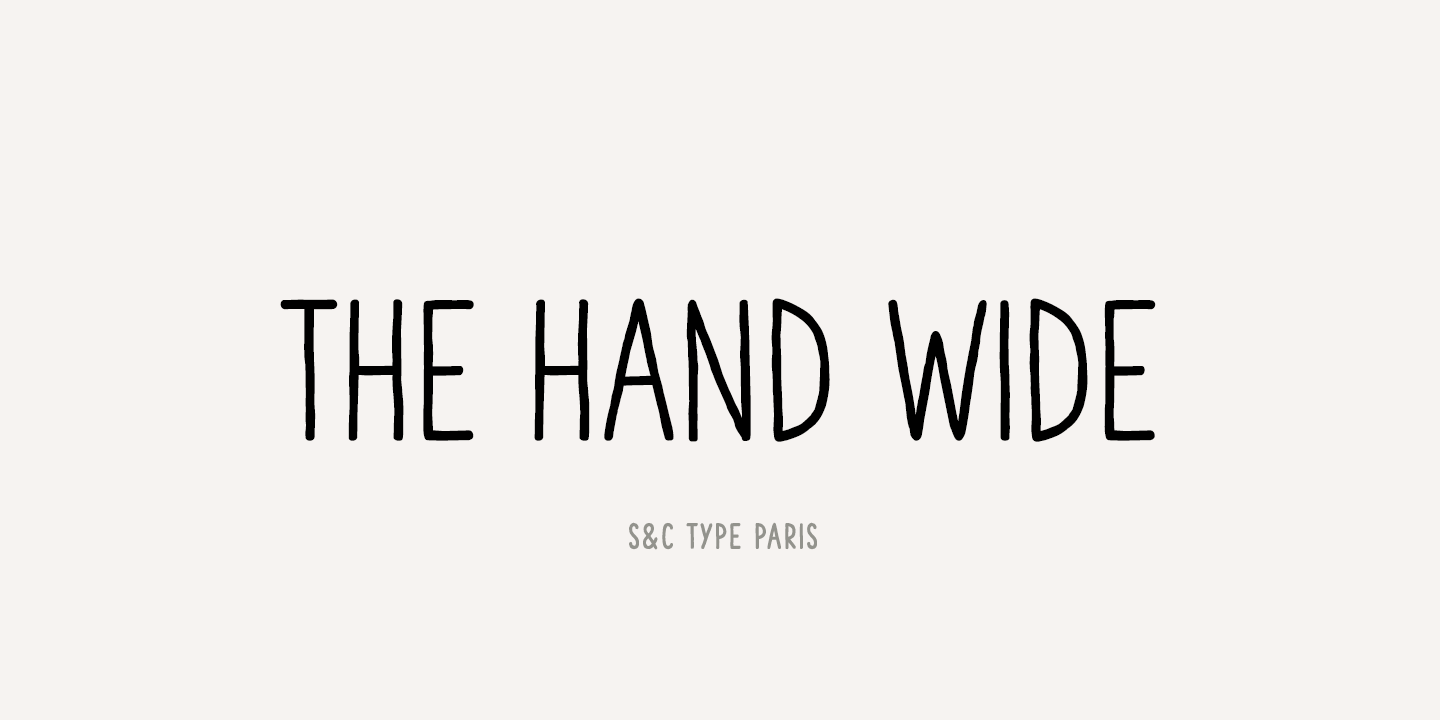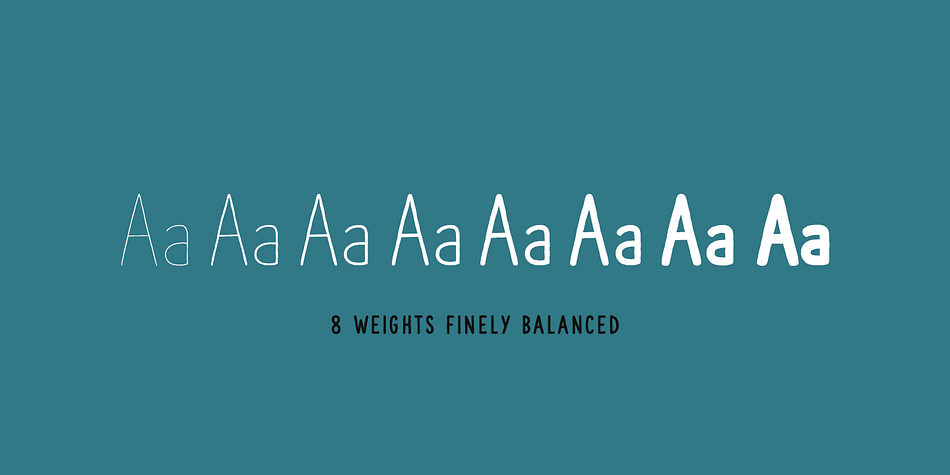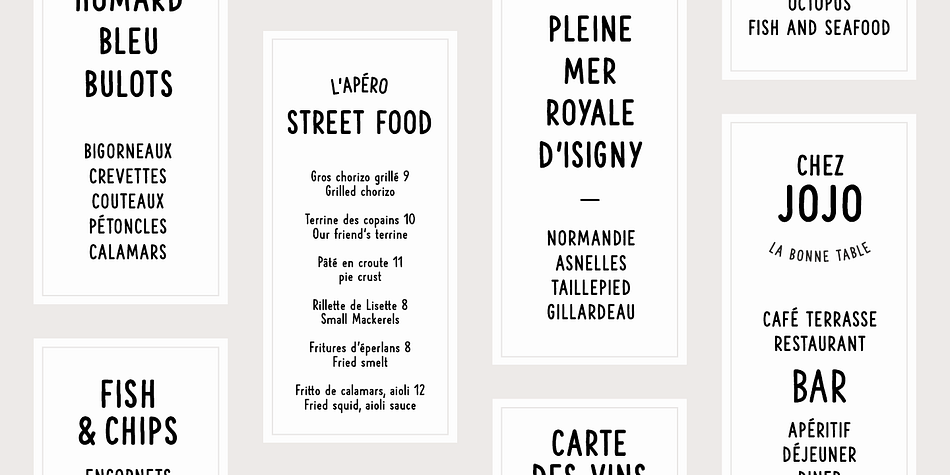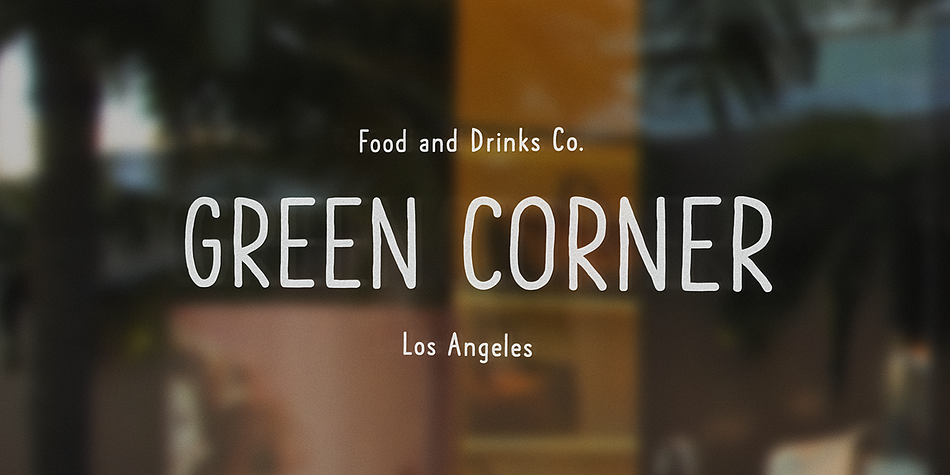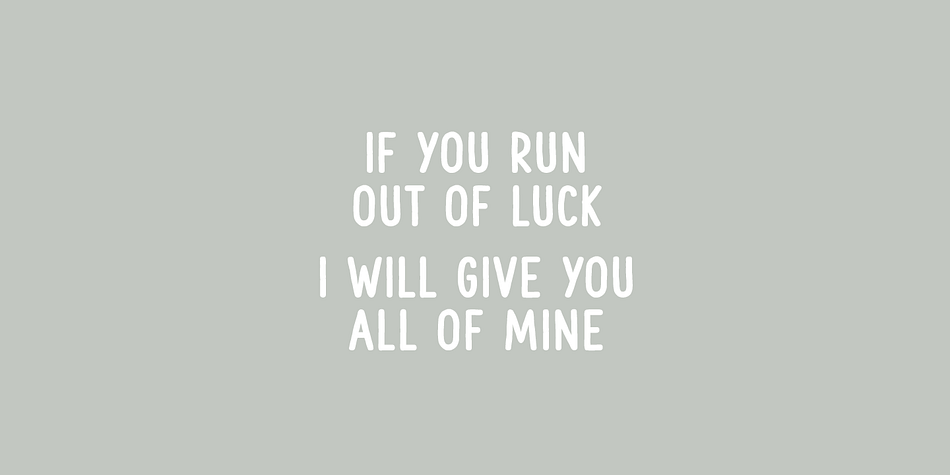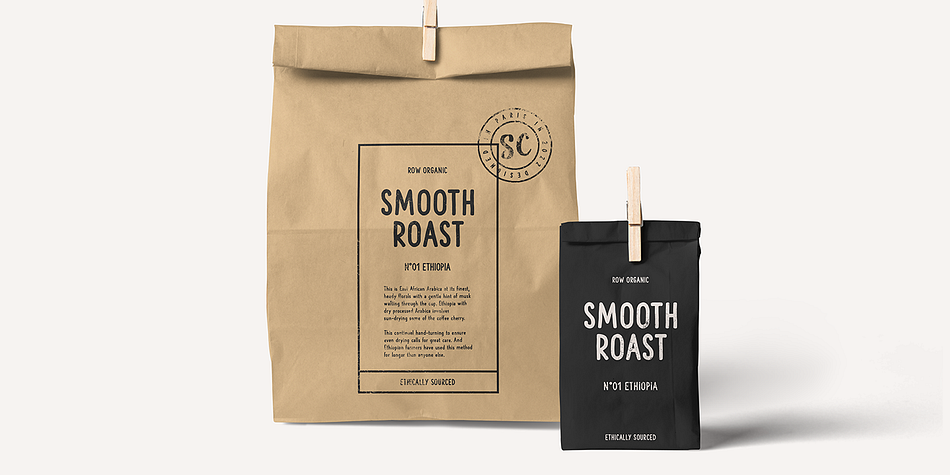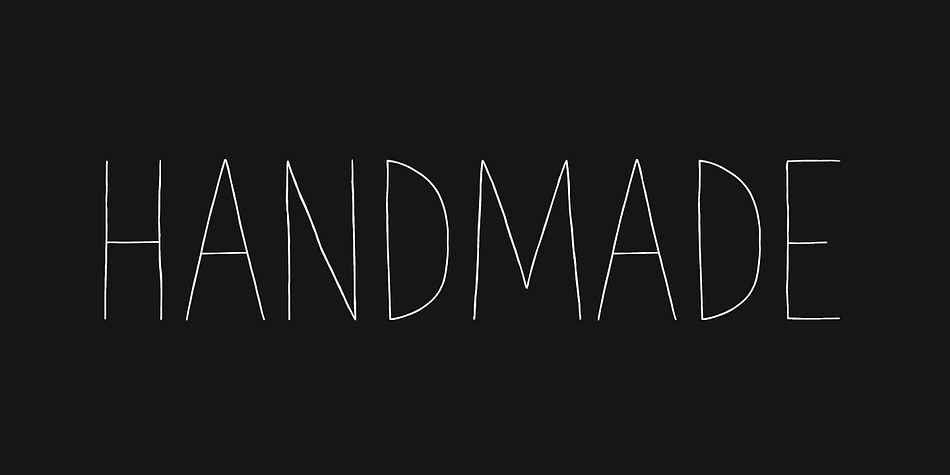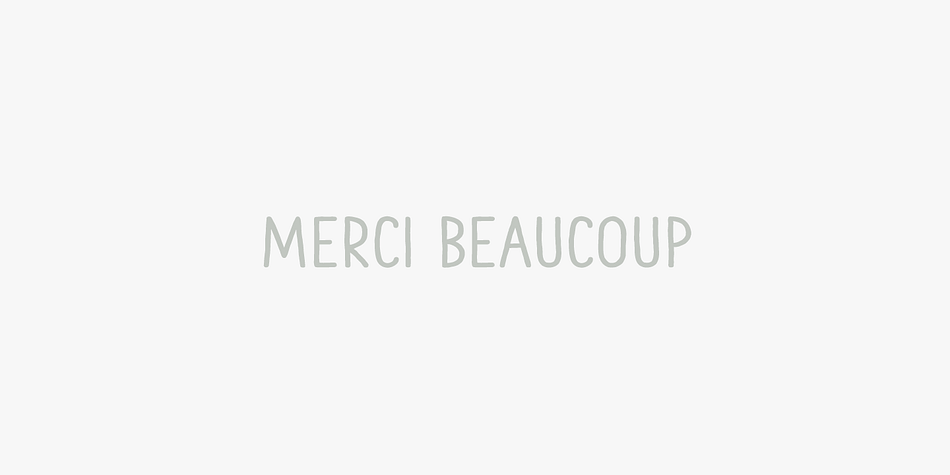
The Hand Wide
Designed by Julien Saurin and Fanny Coulez, The Hand Wide is a hand drawn and kids font family. This typeface has eight styles and was published by S&C Type.
The Hand Wide is a handwritten font designed by Fanny Coulez and Julien Saurin in Paris. We wanted to create the most generic, readable and finely balanced handwritten font, to work well in every kind of design. It’s an extended version of our font The Hand.